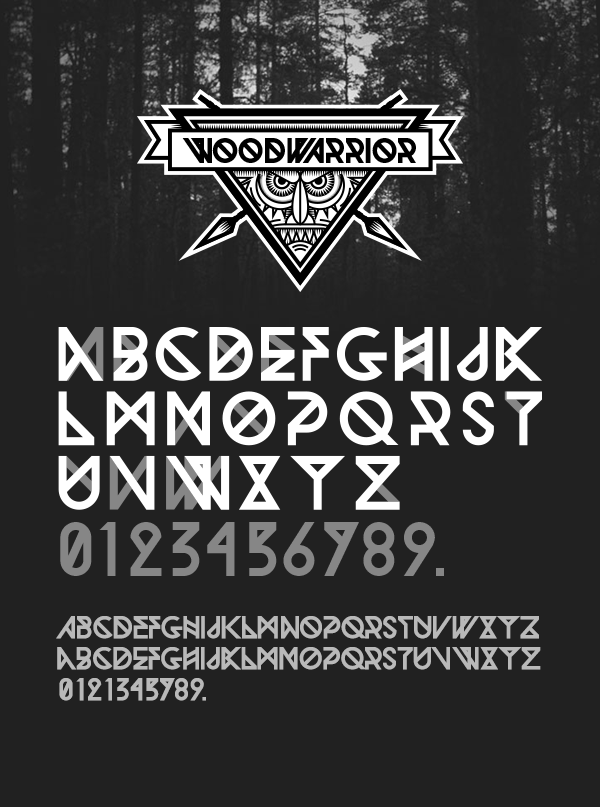
Woodwarrior is a typeface inspired by the north, and the contrast between modern man made structures and untouched nature shaped by wind and ice alone. Its all caps with alternative characters. This is the Regular weight of Woodwarrior. The full family can be obtained for free from http://antonbohlin.com/get-woodwarrior Don't miss the full presentation with video! http://antonbohlin.com/projects/woodwarrior http://www.behance.net/gallery/Woodwarrior/9461841 |